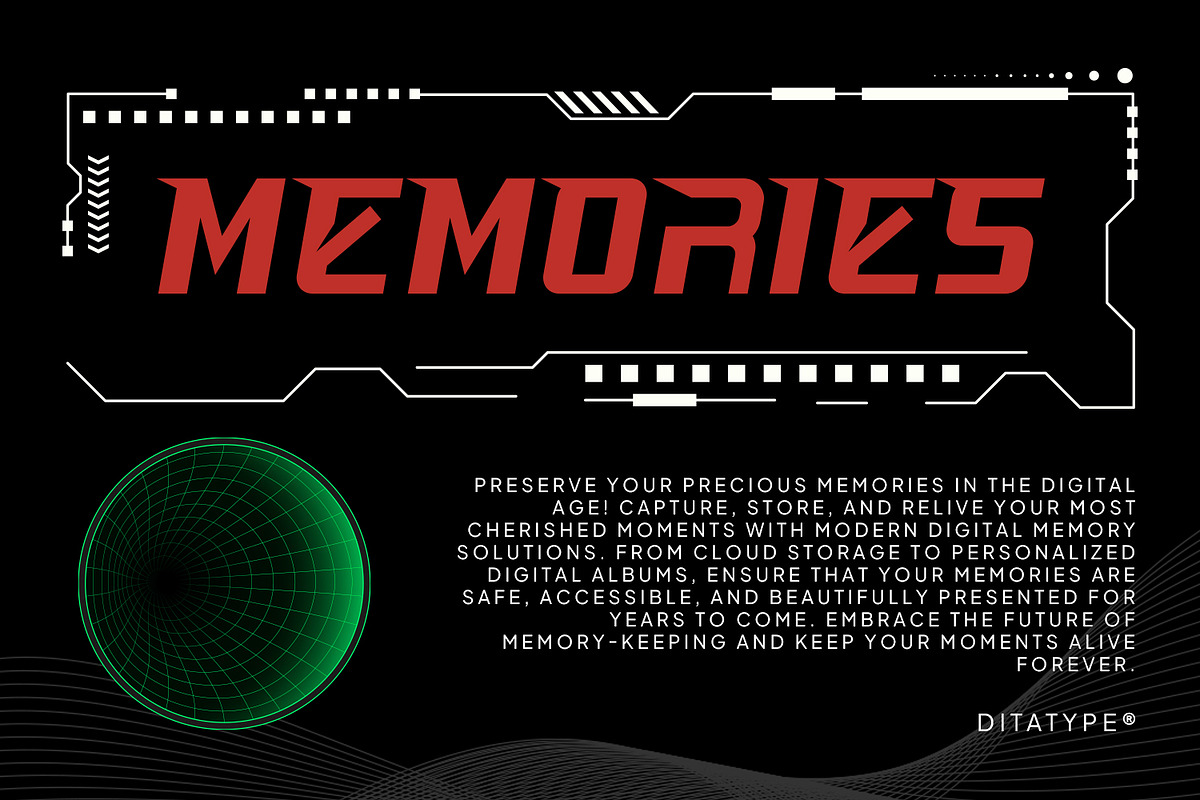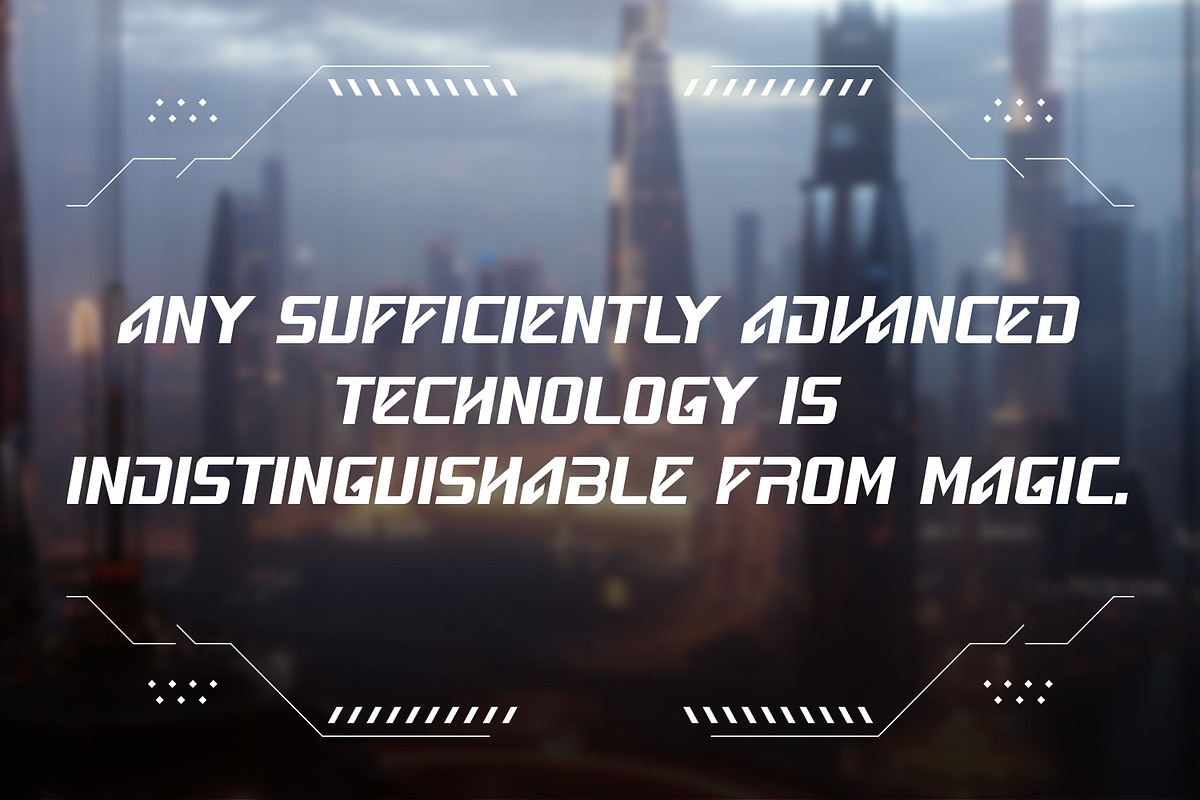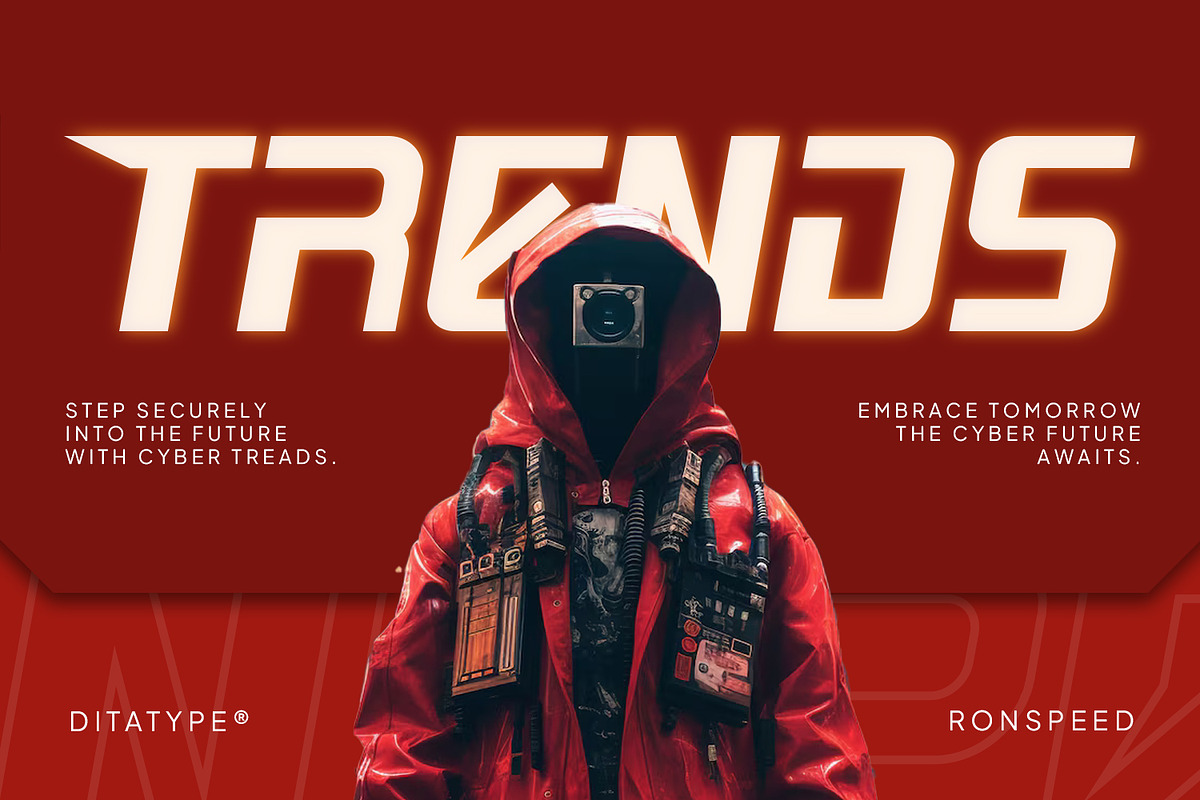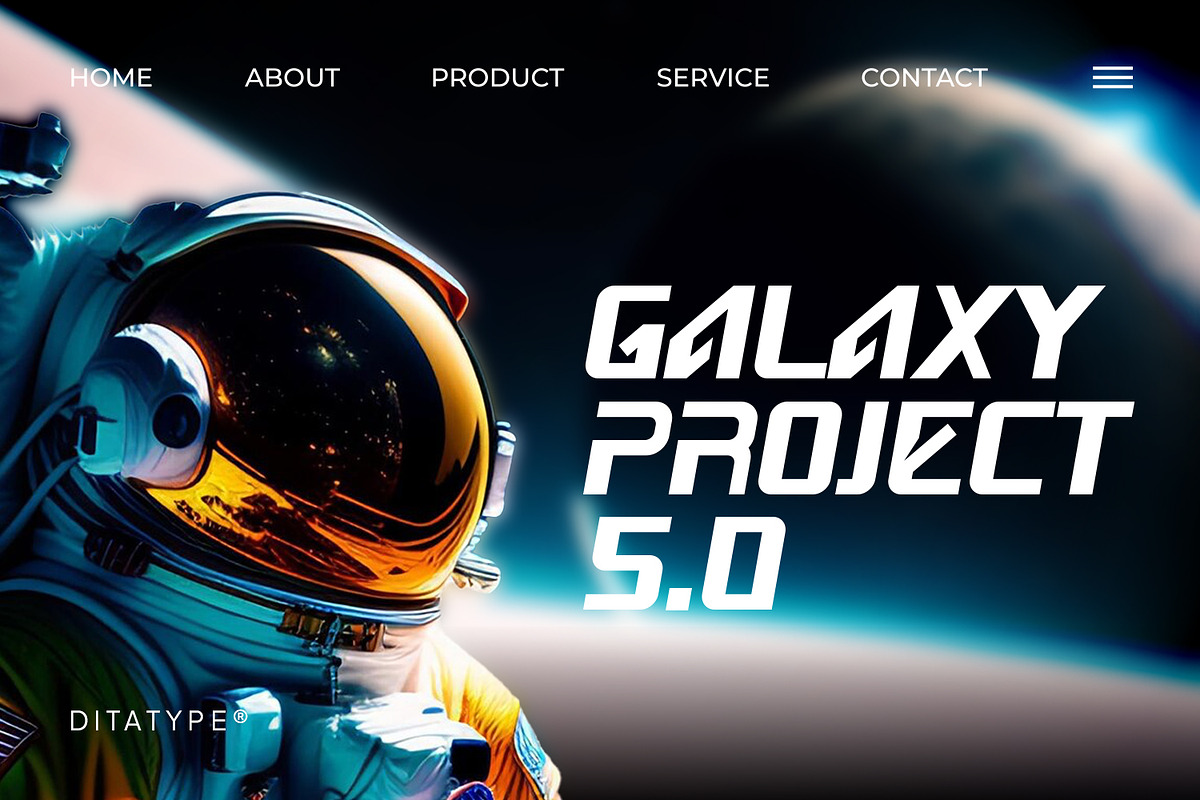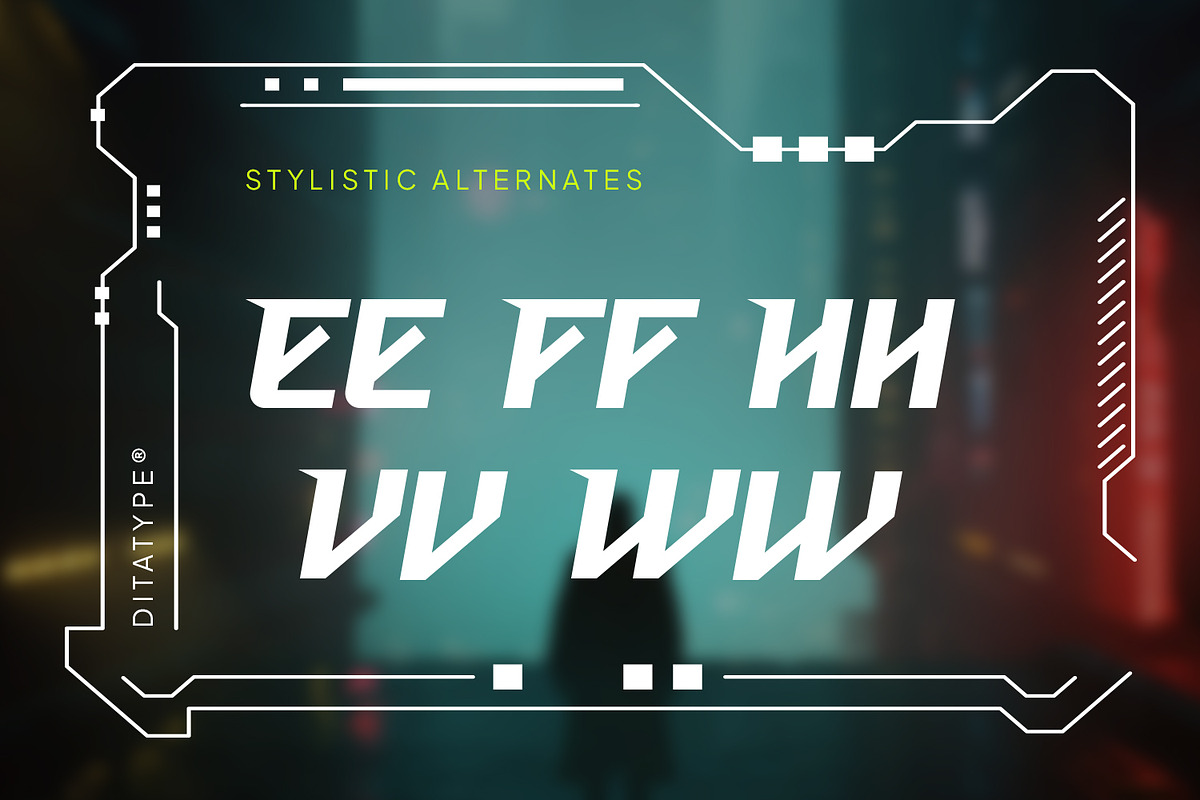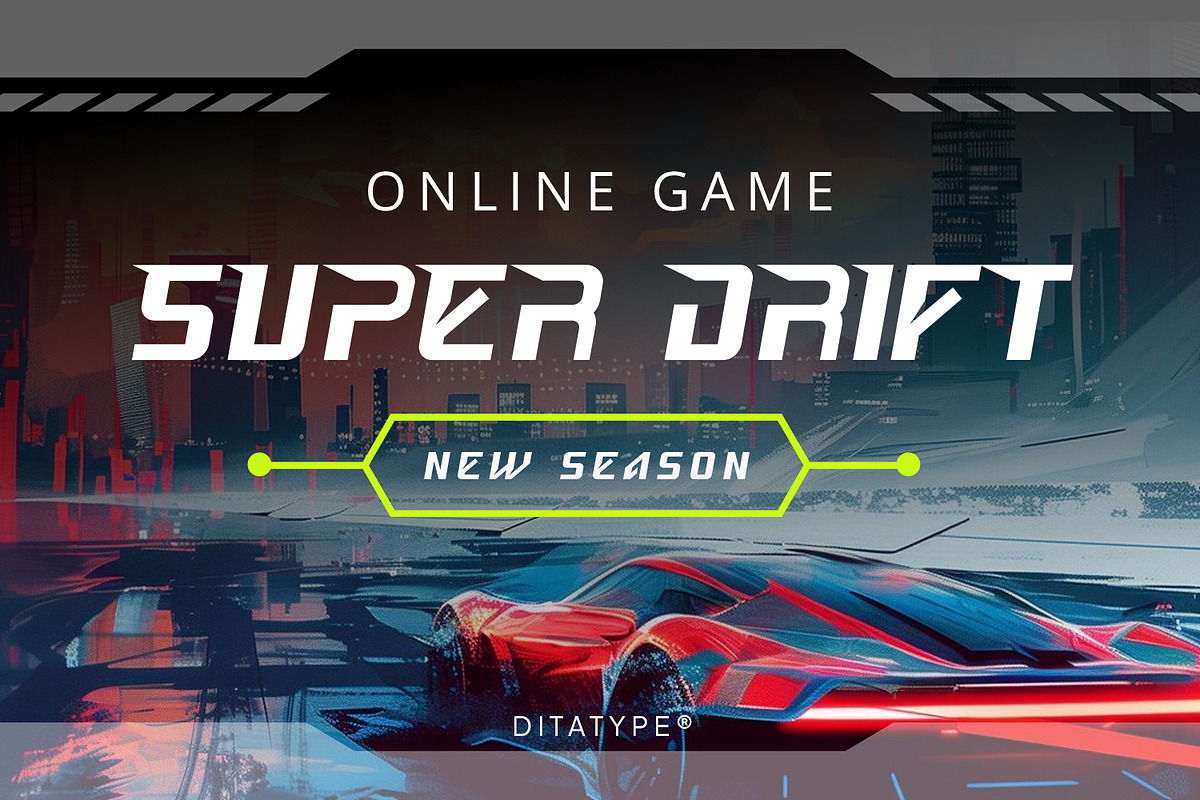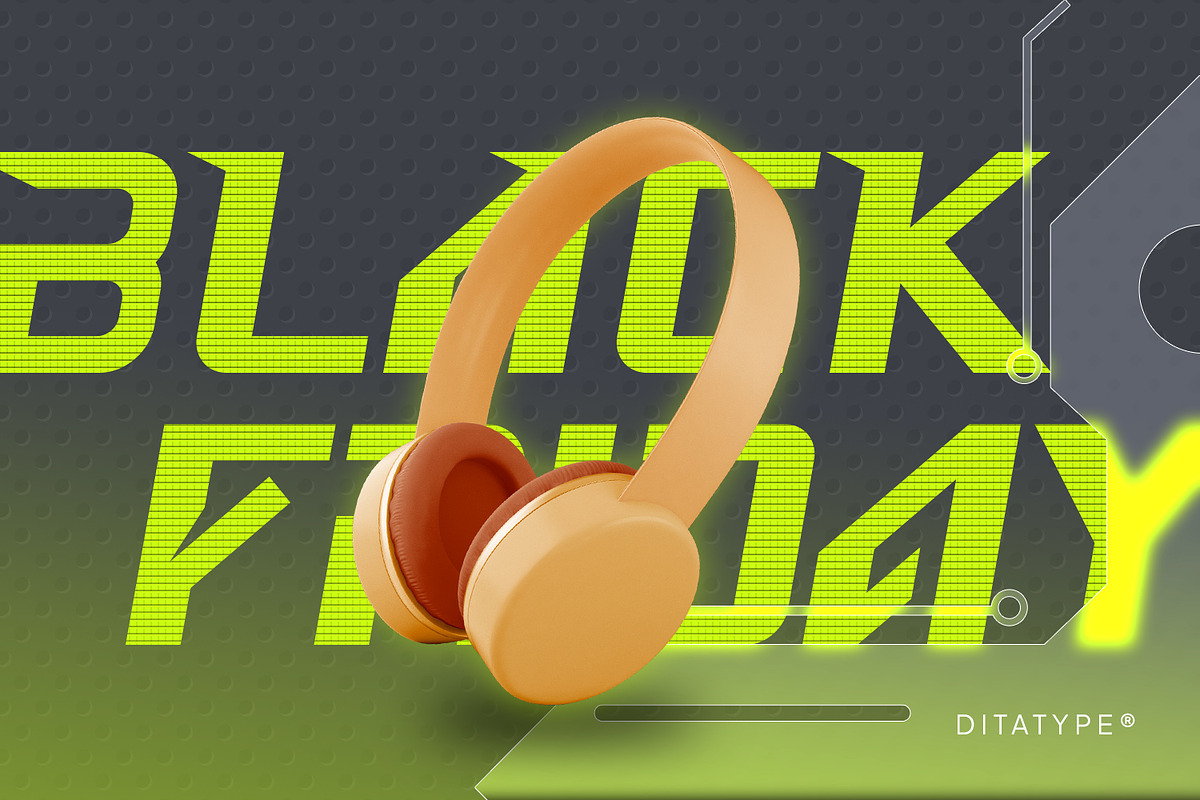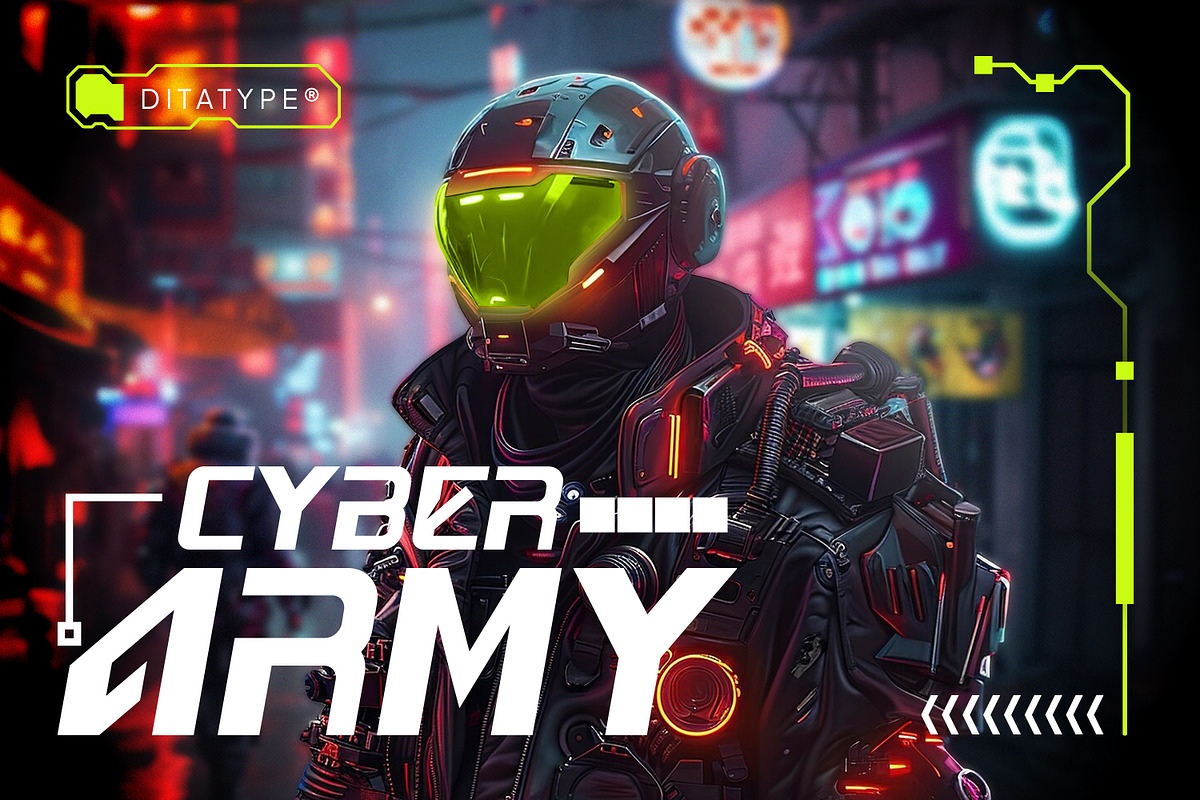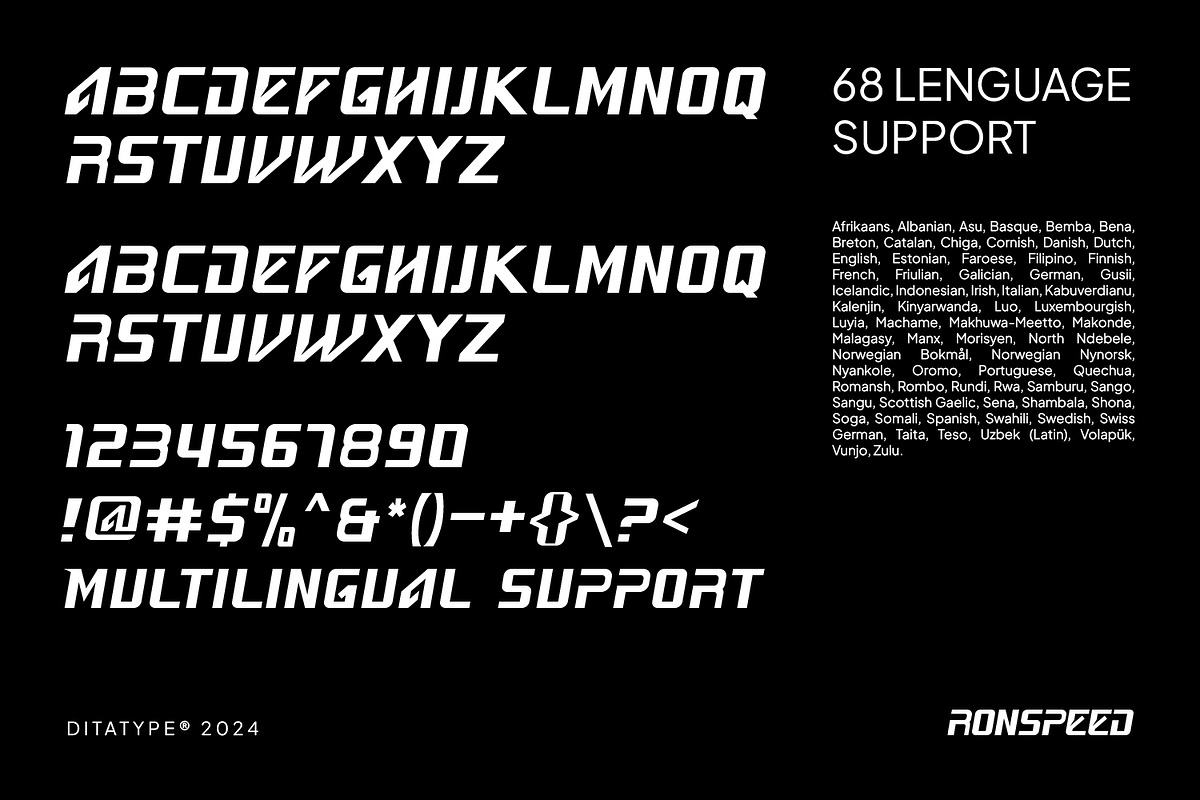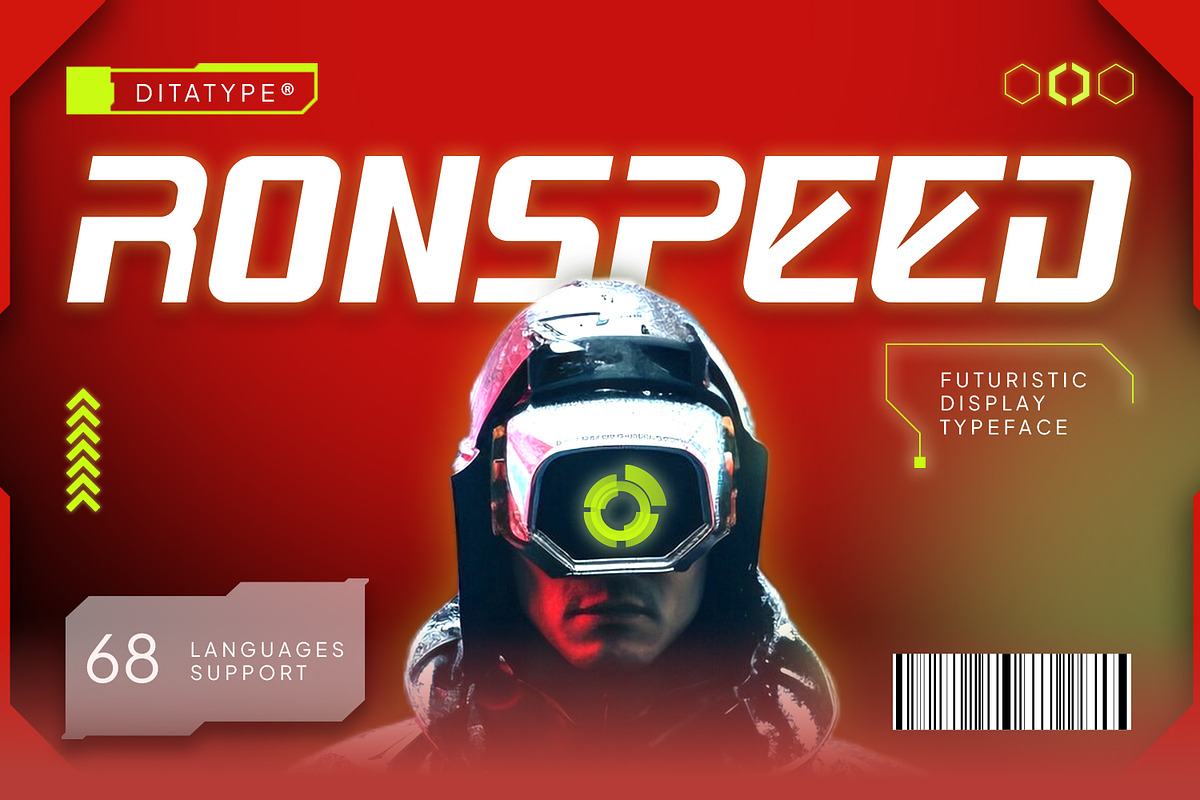
Ronspeed
Introducing Ronspeed – a bold, futuristic display font designed for impact. Crafted in uppercase with a thick weight, Ronspeed exudes strength and precision. Its sharp and sturdy design elements reflect a modern, high-tech aesthetic, making it perfect to add a forward-looking, cutting-edge style. Ronspeed brings a powerful and dynamic presence to your designs, ensuring they stand out with a sleek, futuristic edge. In addition, enjoy the features here.
Ronspeed fits in logos, posters, flyers, branding materials, print media, editorial layouts, and many more designs. Find out more ways to use this font by taking a look at the font preview.